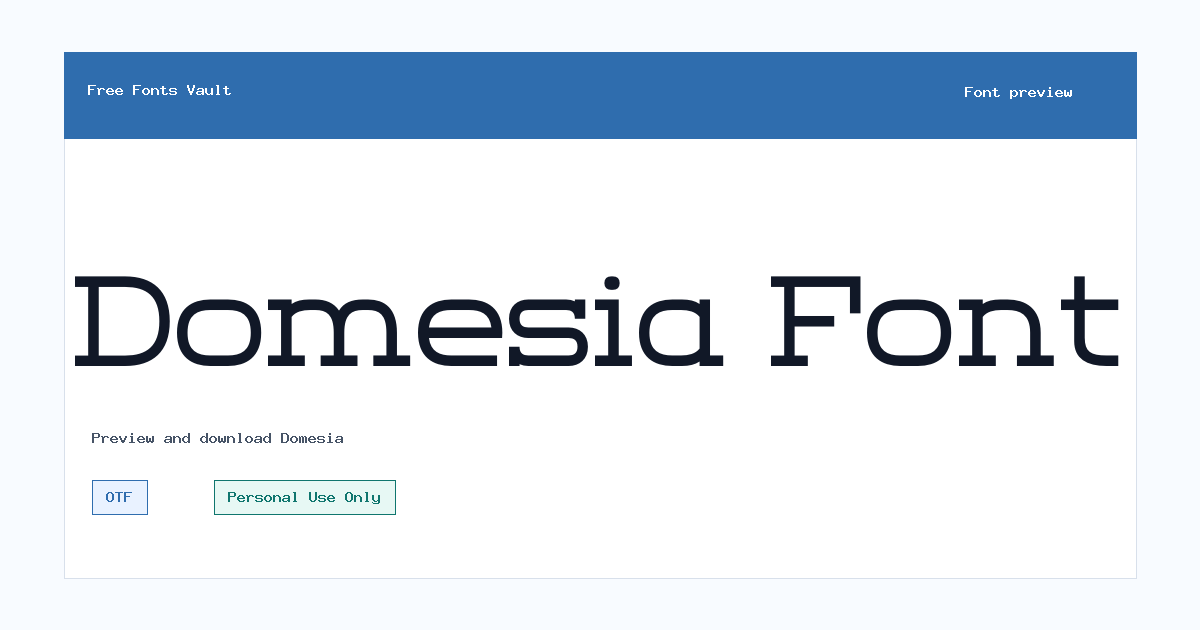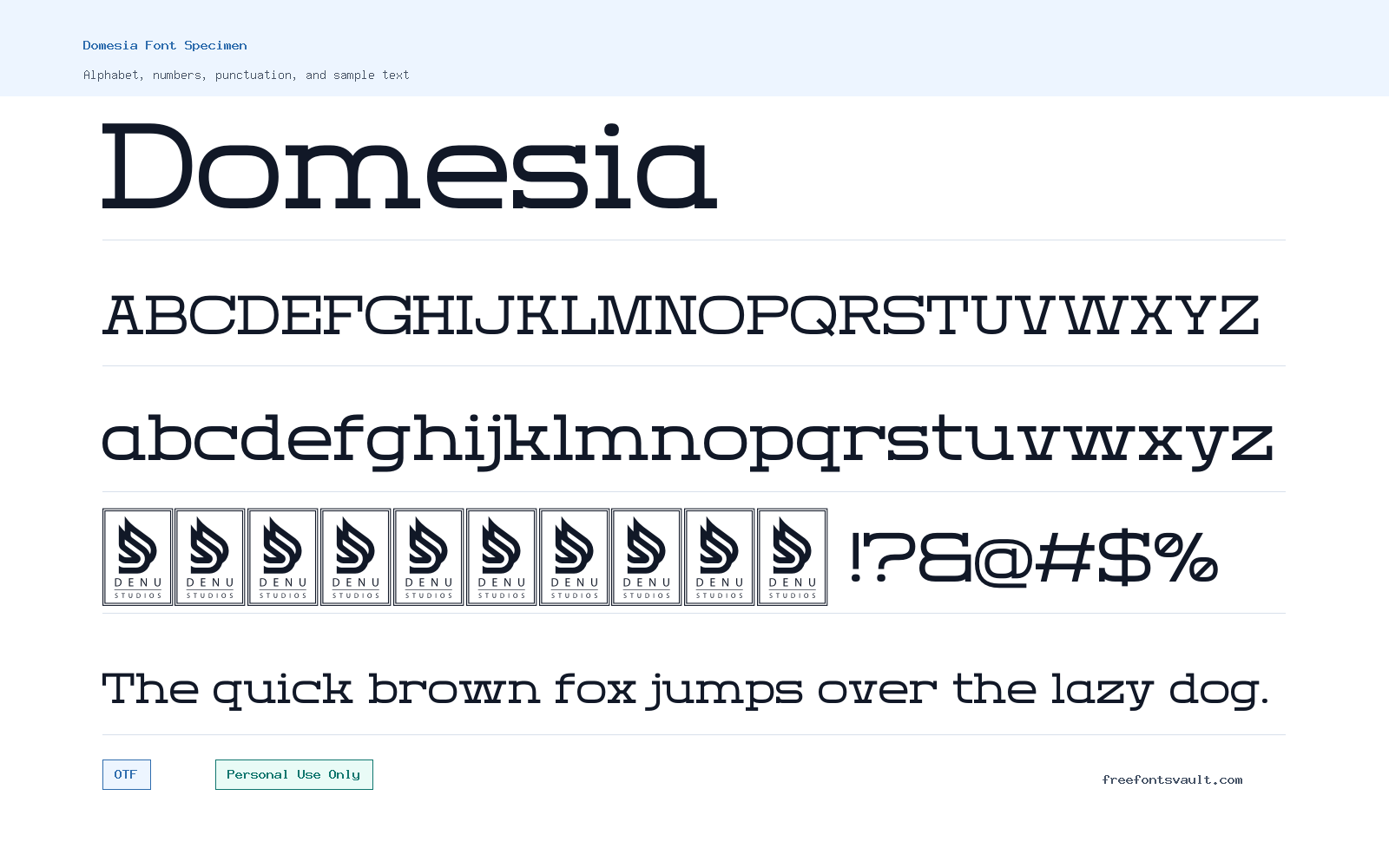
Domesia
Domesia Font
Domesia is a wide slab serif font with a strong display feel, made for short text that needs weight, structure, and a confident headline look.
About Domesia Font
Domesia works best when it is used as a display face rather than a long-reading text font. Its wide letterforms and slab serif construction give words a broad, steady shape, which suits titles, poster lines, badge-style graphics, sports-inspired layouts, packaging mockups, and bold social media artwork. The style has enough presence for a single word or short phrase to become the main visual element, so it is worth testing it at larger sizes before deciding how much supporting decoration your design really needs.
Use the preview to check spacing, uppercase words, numbers, and any special letter combinations you plan to use. Wide slab fonts can look powerful in logos, posters, and product concepts, but they can also take up more horizontal space than a regular serif or sans serif. If your layout has narrow columns, small buttons, or long headings, test line breaks early. For web mockups, Domesia is better suited to hero text, banners, category headers, and image-based compositions than paragraph copy. Pair it with a quiet sans serif for descriptions, menus, captions, and body text so the display style does not compete with the information around it.
• Wide slab serif style with a bold display presence for short, high-impact text.
• Poster titles, sports-style graphics, badges, quote art, and bold social media layouts.
• Branding concepts, packaging mockups, book covers, labels, and logo exploration when the correct license is secured.
For design work, start with short words in uppercase and title case, then compare how Domesia behaves in tight and loose tracking. It can carry a strong headline on its own, so keep secondary fonts simple. A neutral sans serif is a safe pairing for body copy, while a restrained serif can work for editorial layouts if the two typefaces do not fight for attention. Avoid using Domesia for dense paragraphs, small legal text, or narrow mobile UI labels. If you are preparing a logo, wordmark, product label, or commercial campaign, confirm the paid license first because personal-use demo rights are not enough.
What kind of font is Domesia?
Domesia is presented by Gracetype Studio as a wide slab serif. It is best treated as a display font for headlines, posters, branding concepts, and other short-text designs.
Is Domesia good for body text?
It is better for display use. Try it for headings, short phrases, and visual titles, then use a simpler text font for paragraphs and small interface copy.
What should I pair with Domesia?
Pair it with a clean sans serif for body copy, captions, navigation, and supporting text. This keeps Domesia as the main accent without making the page feel crowded.